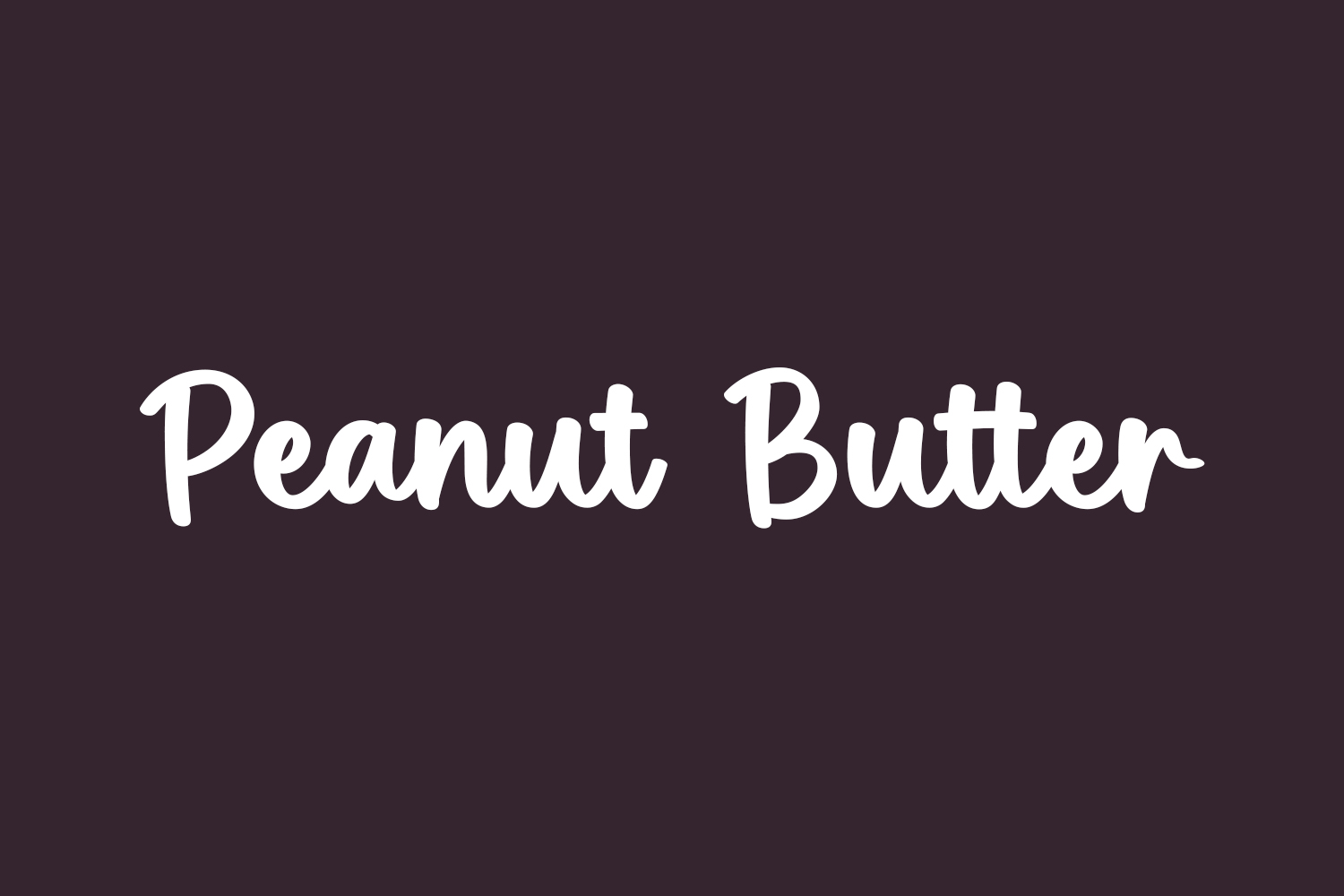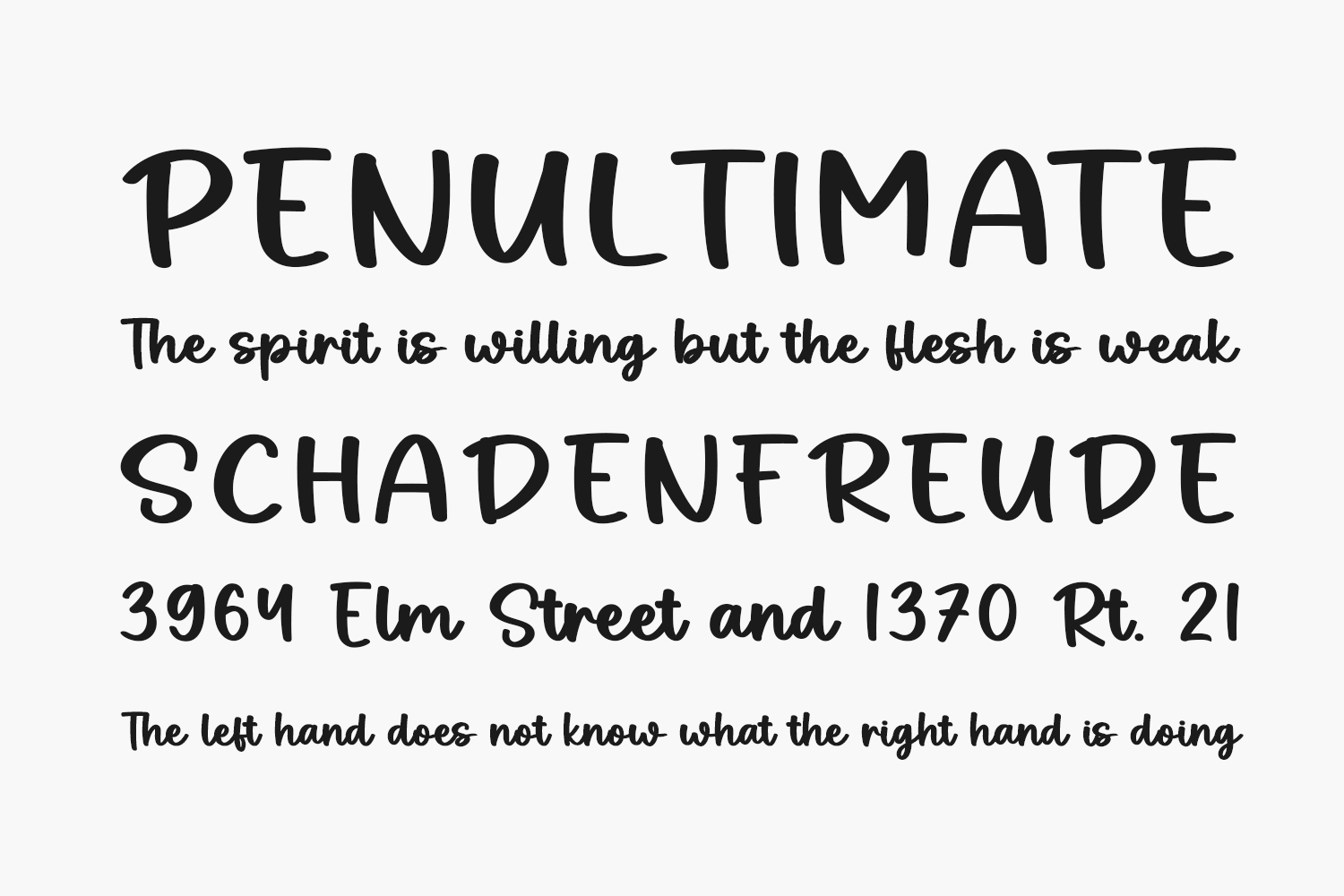
Peanut Butter Free Font showcases a refined, graceful, and effortlessly handcrafted font. With its harmonious and attractive characters, this font complements a diverse range of design projects seamlessly. Download the font for free if you need it for personal use or purchase the full version for commercial use.
Designed by Graphix Line Studio